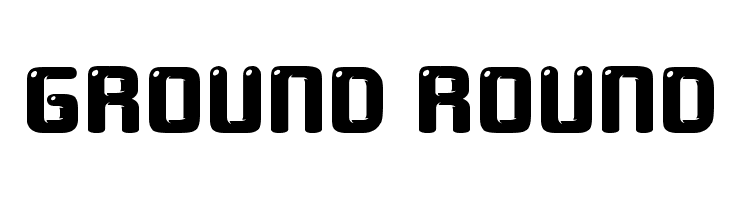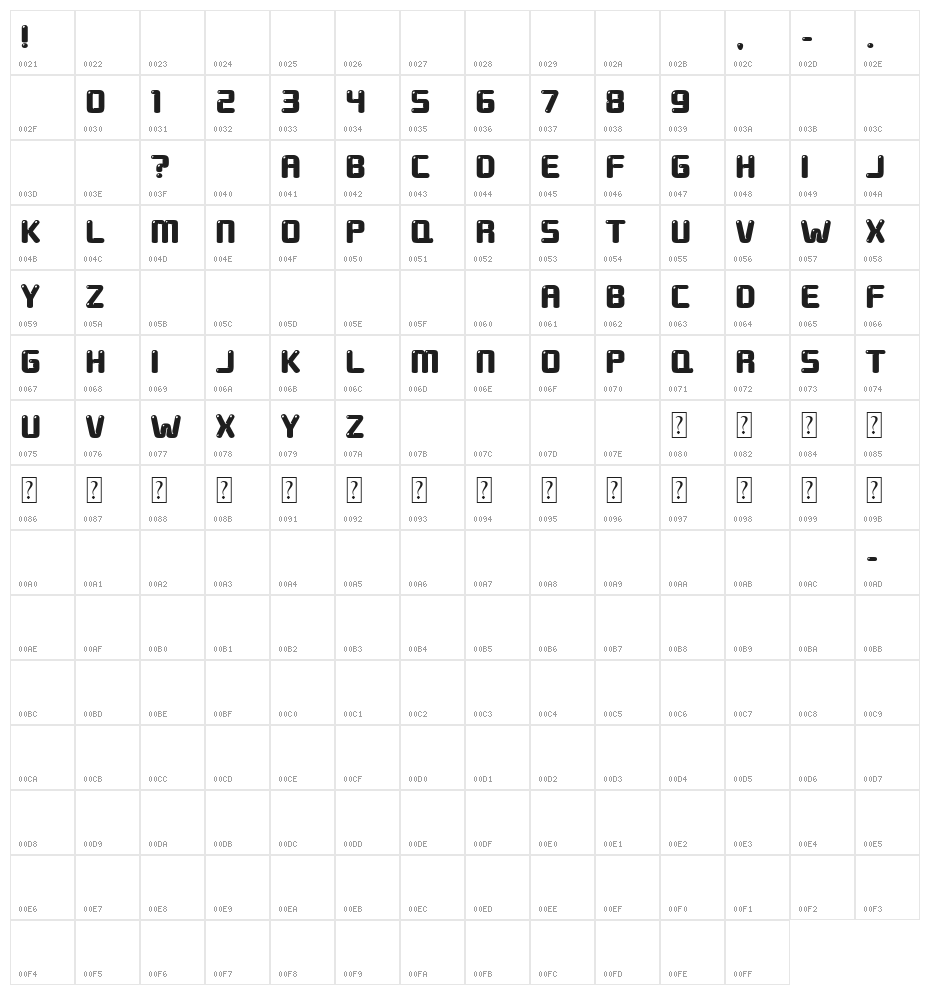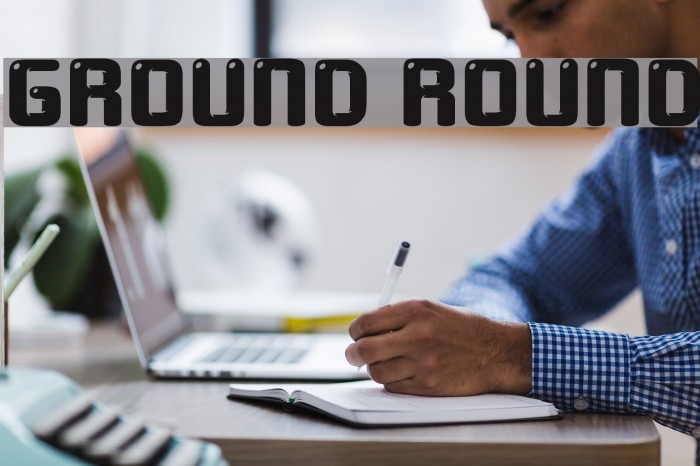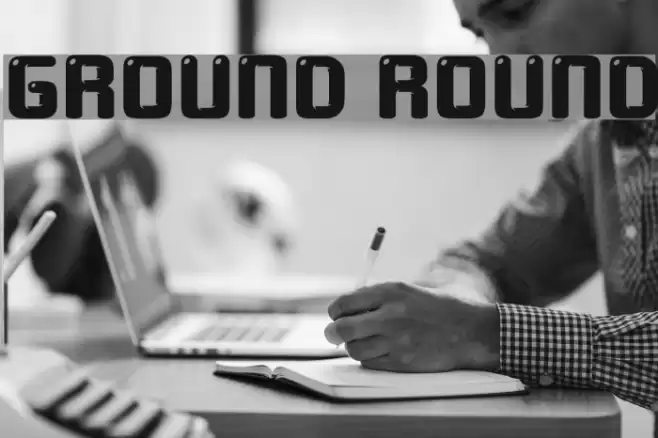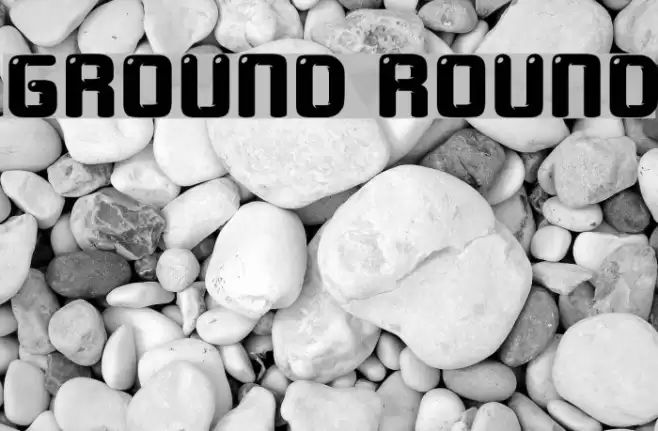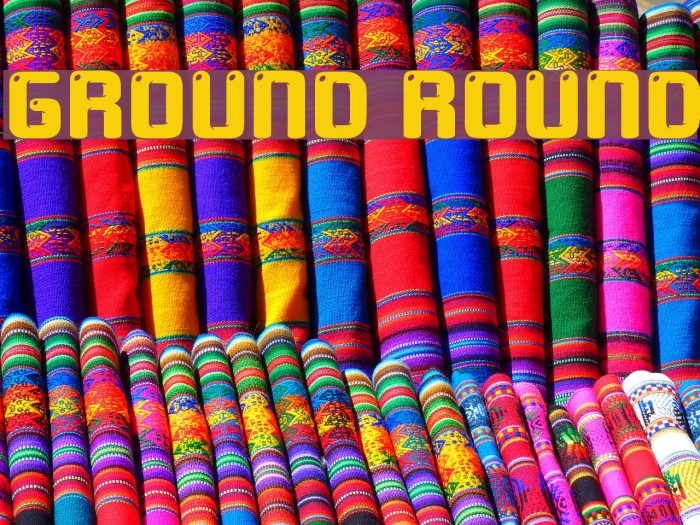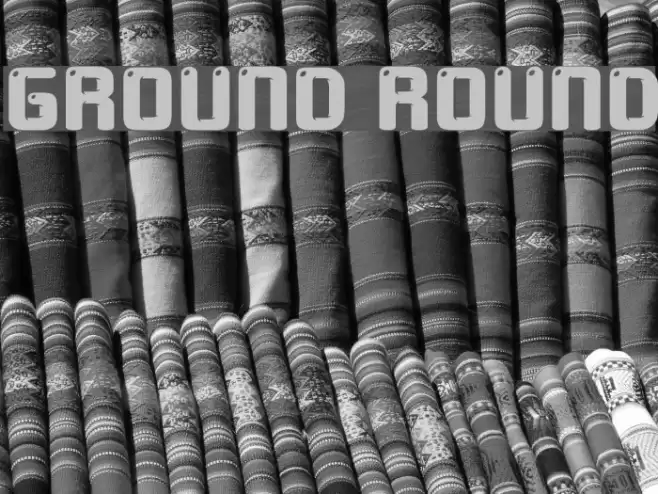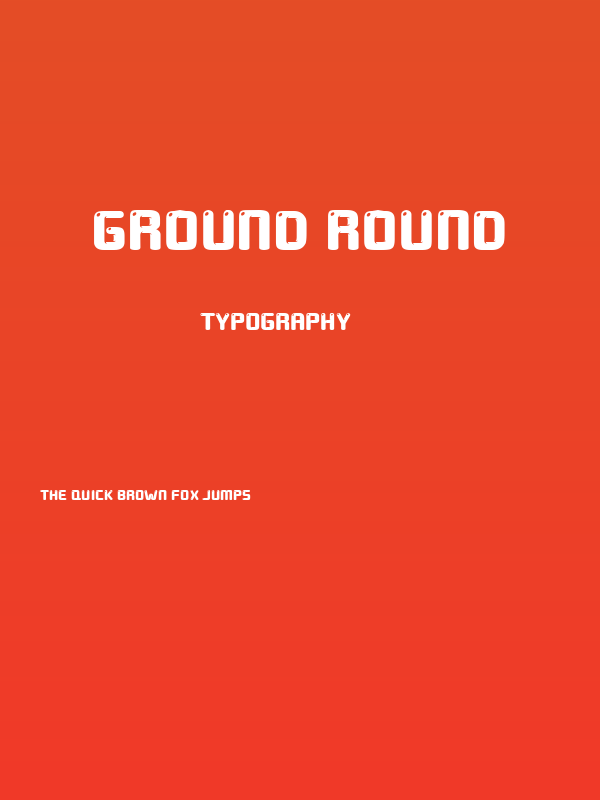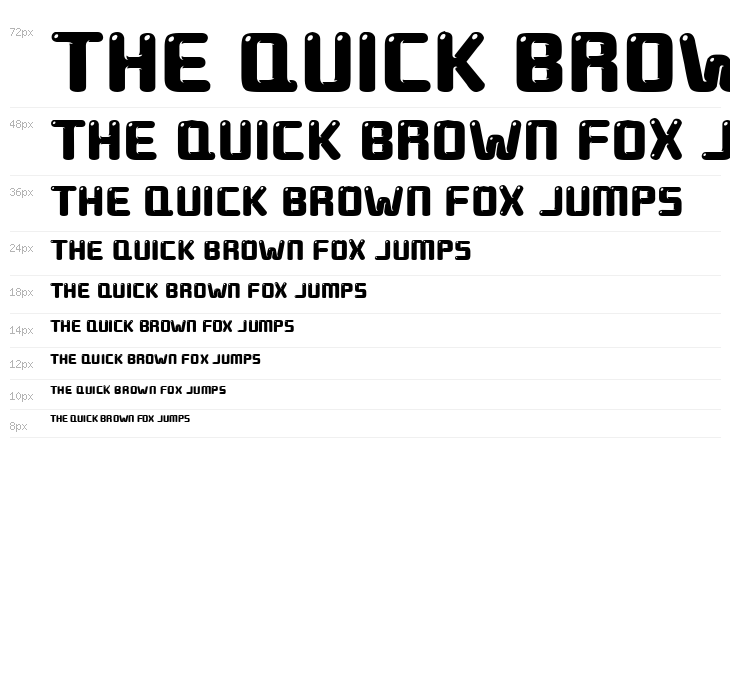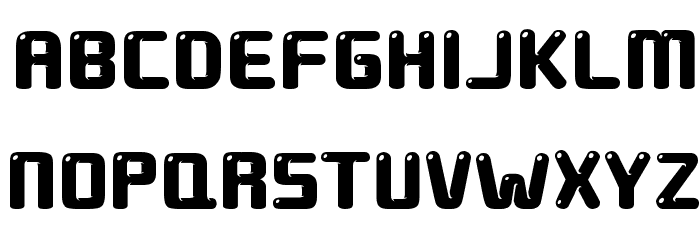
ground round Font
ground round Description
This font features a bold, rounded style with a unique industrial aesthetic. Each character is crafted with a solid, block-like appearance, incorporating rounded corners and small circular cutouts that add a mechanical feel. The uppercase and lowercase letters maintain a consistent height, contributing to a uniform look across the typeface. The numerals and special characters follow the same design principles, ensuring cohesion throughout. The overall design is modern and eye-catching, making it suitable for projects that require a strong visual impact.